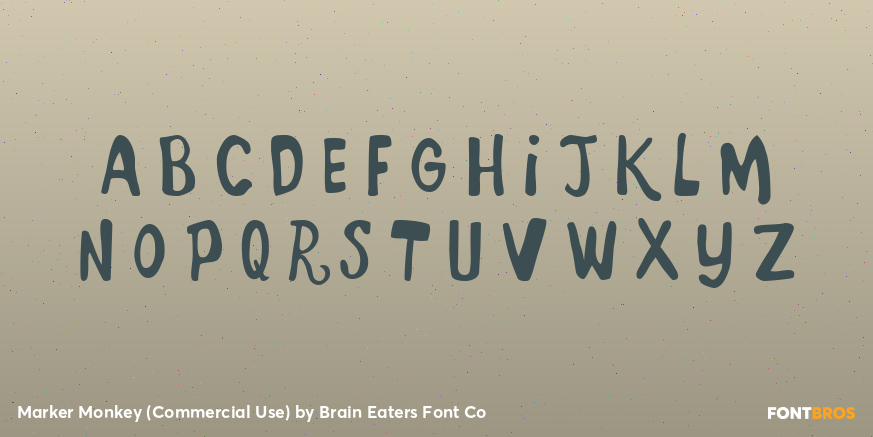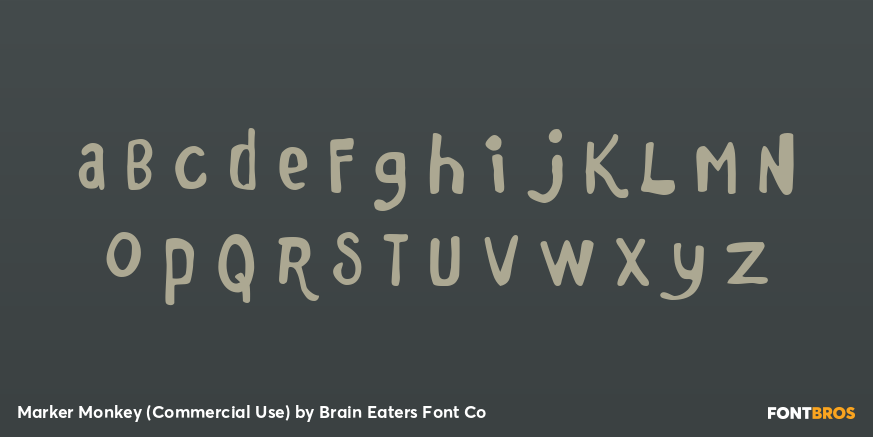
Marker Monkey (Commercial Use)
Buy NowMarker Monkey (Commercial Use) is a single-style handwritten sans serif with a bold, marker-made look and an easygoing, playful attitude. Thick strokes, rounded forms, and an irregular baseline give it a bouncy, hand-drawn feel that reads as casual, friendly, and a little quirky.
Its cartoonish personality makes it a strong fit for fun display work, especially anywhere you want lettering to feel informal and approachable. Use it for kid-focused designs, playful branding, posters, packaging, social graphics, or craft-style projects that benefit from a bold handwritten voice.
Created by Brain Eaters Font Co, this one-font family keeps things simple while delivering plenty of character. If you’re after a marker-inspired style that feels relaxed, rounded, and full of personality, this is an easy choice.